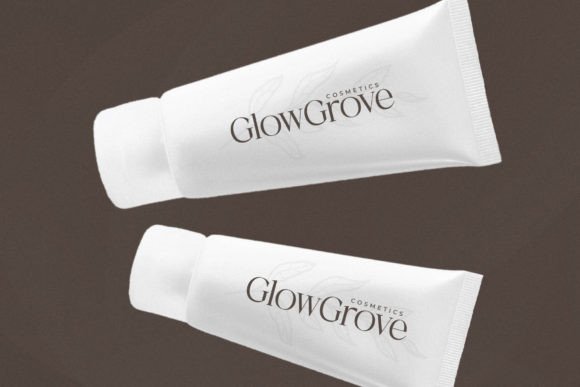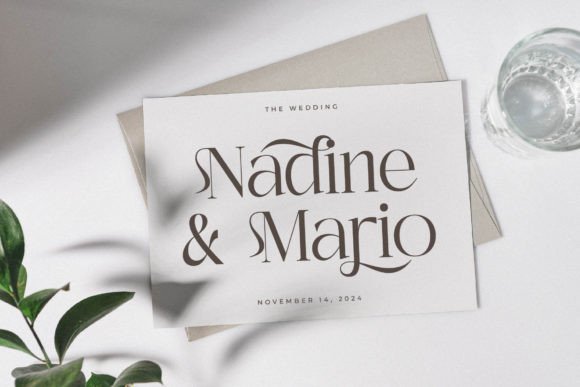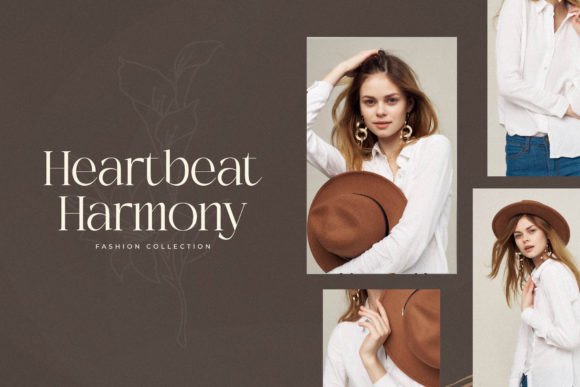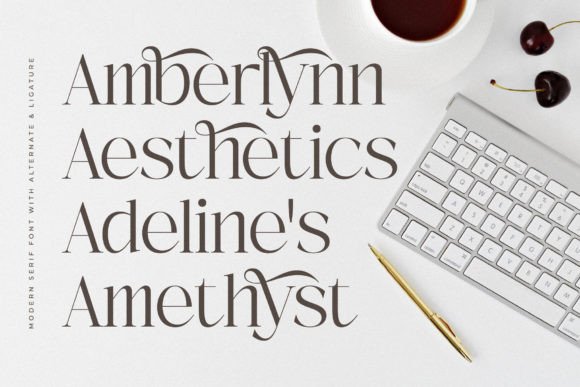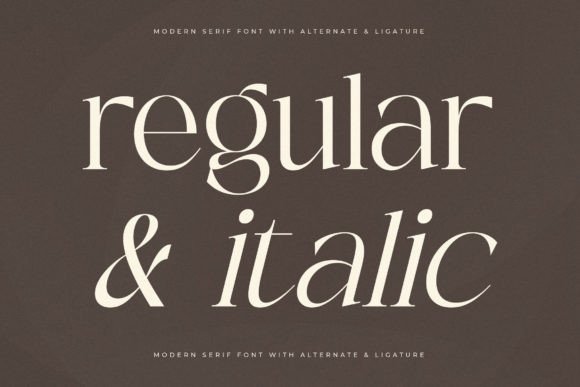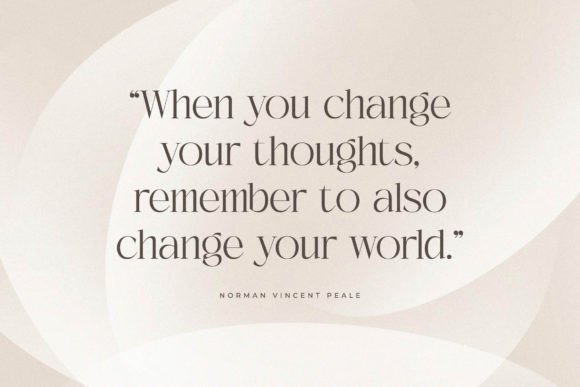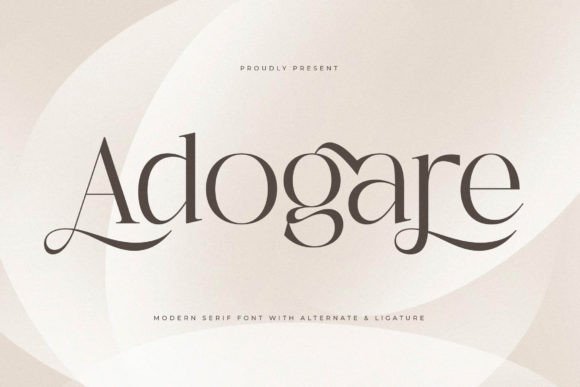
Introducing Adogare Font: The Epitome of Modern Elegance
Welcome to the world of typography, where the art of font creation meets innovation and style. We are proud to present Adogare Typeface, a masterpiece crafted by Storytype, a renowned name in the realm of font design. Adogare is a serif modern and classic typeface that boasts a unique style and a modern look, making it the perfect addition to your design arsenal.
A Unique Blend of Classic and Modern
Adogare Font strikes the perfect balance between classic serifs and modern aesthetics. Its distinctive style is characterized by clean lines, elegant curves, and a sophisticated charm that instantly elevates any design. Whether you’re working on a luxury logo, a book or movie title, a fashion brand, or a magazine, Adogare is the ideal choice to make your project stand out.
The versatility of Adogare Font is one of its most notable features. This typeface can be used for a wide range of design applications, including:
• Elegant logos and branding
• Book and movie titles
• Fashion brand designs
• Magazine and newspaper layouts
• Clothing and apparel design
• Lettering and quotes
• And many more
Why Choose Adogare Font?
Adogare Font offers a multitude of benefits that make it an attractive choice for designers and crafters. Here are just a few reasons why:
• Unique Style: Adogare’s distinctive style sets it apart from other typefaces, ensuring your designs will stand out from the crowd.
• Modern Look: Its modern aesthetic makes it perfect for designs that require a fresh and contemporary feel.
• Elegance and Sophistication: Adogare exudes elegance and sophistication, making it ideal for luxury brands and high-end designs.
• Versatility: Its wide range of applications makes it a valuable addition to any design collection.
Adogare Font in Action
Imagine using Adogare Font to create a stunning logo for a luxury fashion brand. The clean lines and elegant curves of the typeface instantly convey a sense of sophistication and style. Alternatively, use Adogare to design a book title that demands attention and exudes classic charm. The possibilities are endless, and the results are sure to impress.
Tips for Using Adogare Font
To get the most out of Adogare Font, here are a few tips to keep in mind:
• Experiment with Sizes: Adogare looks great in a variety of sizes, from large headings to smaller body text.
• Play with Colors: The typeface works well with a range of colors, from bold and bright to muted and subtle.
• Mix and Match: Combine Adogare with other fonts to create a unique and visually appealing design.
In conclusion, Adogare Font is a game-changer for designers and crafters looking to elevate their designs with a touch of elegance and sophistication. Its unique blend of classic and modern styles, versatility, and range of applications make it an invaluable addition to any design collection. With Adogare, you can create stunning designs that demand attention and leave a lasting impression.